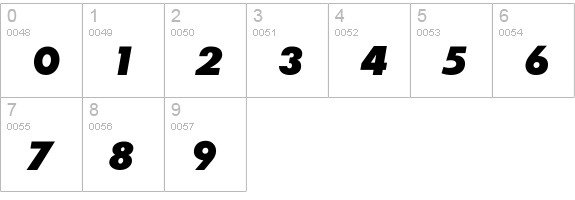
SansSerifExbFLF-Italic Font Details
SansSerifExbFLF-Italic is a distinctive, italic variant in the SansSerifExbFLF typeface family \xE2\x80\x94 well suited to design and typography projects.
SansSerifExbFLF-Italic is a stunningly elegant font that effortlessly combines modern simplicity with a touch of artistic flair. With its slanted and italicized letterforms, this font exudes a sense of sophistication and style, making it perfect for a wide range of design projects. The smooth curves and clean lines of SansSerifExbFLF-Italic create a sense of fluidity and movement, adding a dynamic element to any text it graces. Whether used in headings, logos, or body text, this font captivates the eye and commands attention with its unique blend of boldness and grace. One of the most impressive aspects of SansSerifExbFLF-Italic is that it is freely available to download at FontsMarket.com. This means that designers and enthusiasts alike can access this incredible font without any cost, opening up a world of possibilities for creative expression. Whether you are working on a personal project or a professional assignment, SansSerifExbFLF-Italic is sure to elevate your designs to new heights. Its versatility and timeless appeal make it a must-have for anyone looking to make a lasting impression. Experience the beauty and power of SansSerifExbFLF-Italic today by downloading it for free at FontsMarket.com. Don't miss out on the opportunity to enhance your designs with this exceptional font that effortlessly combines style and accessibility.